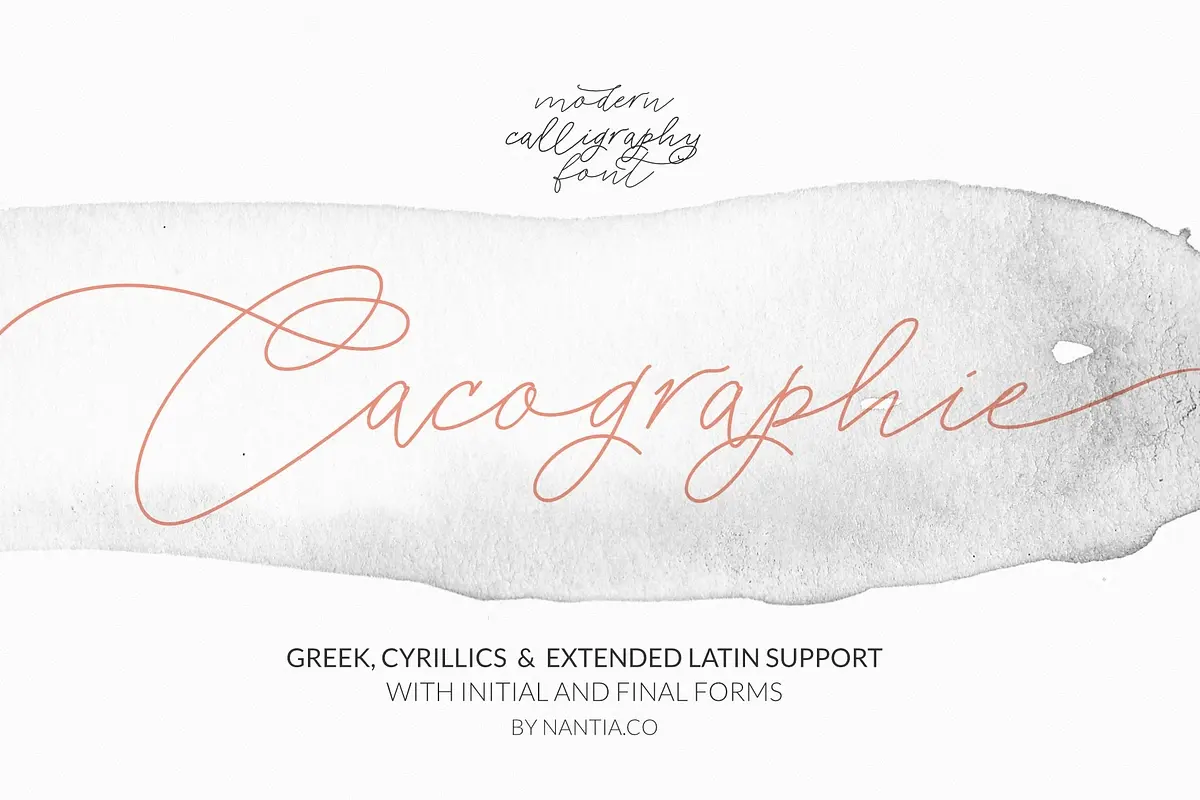
This multilingual font is perfect for international publishing, academic research materials, historical documents, cultural exhibitions, educational textbooks, religious publications, archaeological studies, and cross-cultural design projects. Its comprehensive character support makes it ideal for projects requiring authentic Greek and Cyrillic typography with distinctive artistic flair.
Greek Font Cyrillic Cacographie is exciting because it masterfully combines traditional calligraphic elements from both Greek and Cyrillic writing systems, creating a unique typeface that honors ancient scribal traditions while offering modern functionality. The font features authentic letterform proportions and historical accuracy that reflects centuries of manuscript tradition, yet maintains contemporary readability and digital optimization. Its scholarly approach to multilingual typography ensures cultural authenticity and academic credibility.
The Greek Font Cyrillic Cacographie family includes comprehensive character sets covering ancient and modern Greek alphabets, full Cyrillic support for multiple Slavic languages, and specialized academic symbols. Many versions feature historical variants, ligatures, and diacritical marks essential for proper scholarly and liturgical applications.
Whether you're creating academic publications, cultural heritage materials, or international educational content, Greek Font Cyrillic Cacographie Free Download delivers unmatched authenticity with professional versatility. This typeface bridges ancient traditions with modern typography needs, making it invaluable for scholars, educators, and designers working with Greek and Cyrillic texts. Its meticulous attention to historical accuracy combined with contemporary functionality ensures proper representation of these rich writing traditions while maintaining exceptional readability across digital and print media applications.